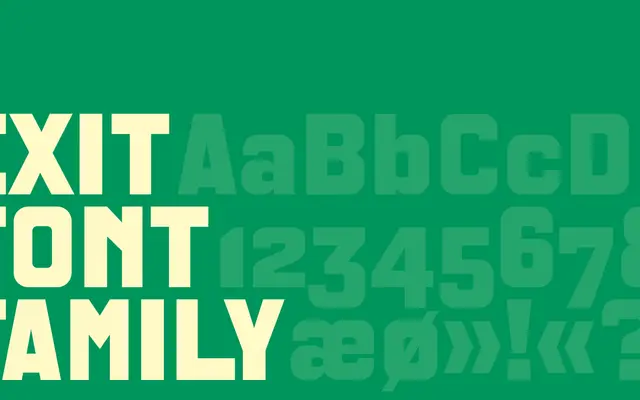
Exit specimen from Playtype
A display typeface from Playtype with a distinctive personality, described through the lens of its designer's reluctant but recurring fascination with compelling creative work.
Exit is positioned as a typeface with genuine character, one that draws its designer back despite reservations. The Playtype page frames the design through a personal narrative of reluctance giving way to renewed engagement, suggesting a face with enough personality to warrant that investment. Details on weights and language support are limited on the page, indicating a focused, single-style release.
The typeface is presented as a display-oriented design with character and personality, suited to compelling editorial and expressive use cases rather than extended text setting.